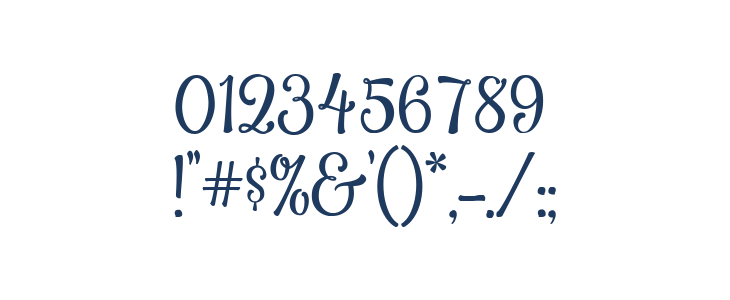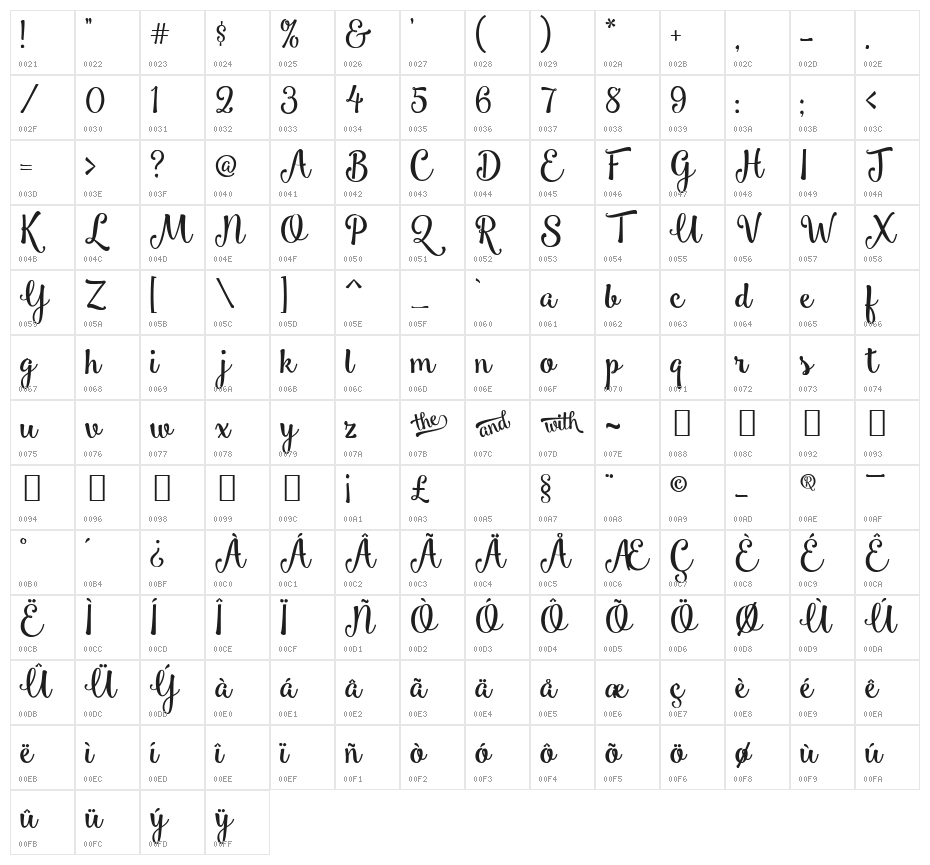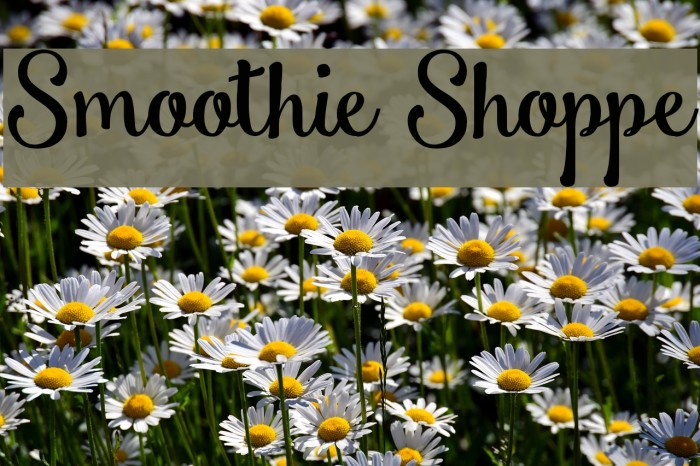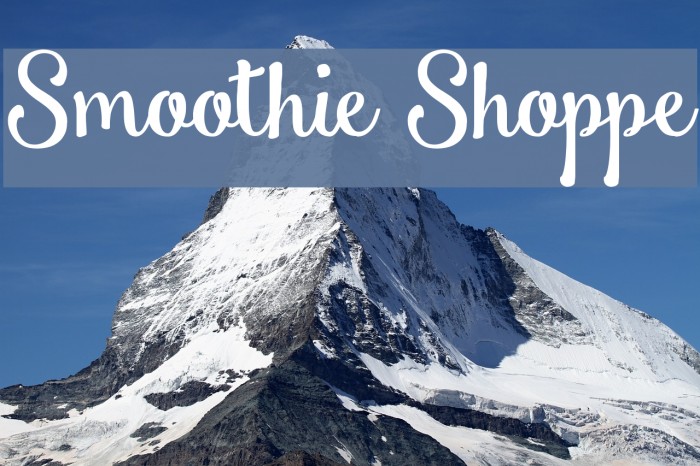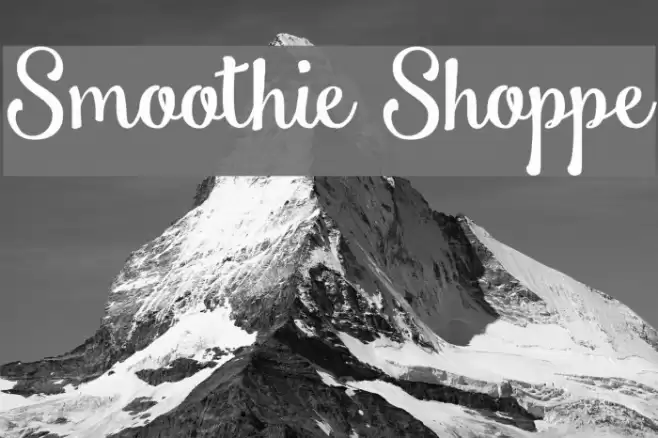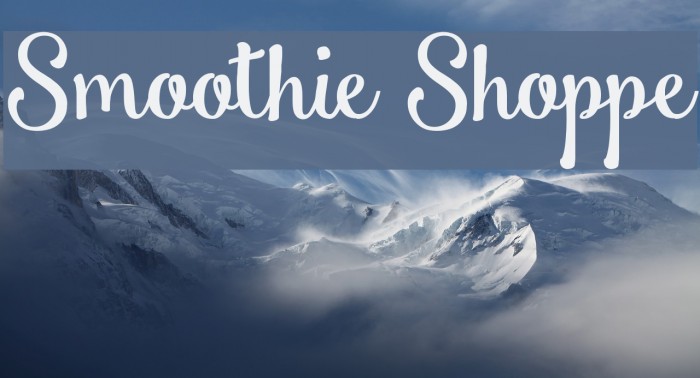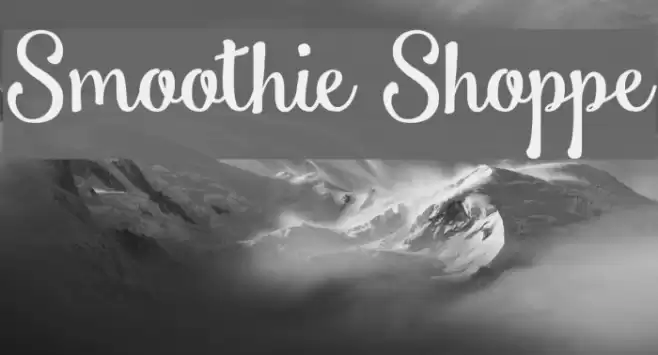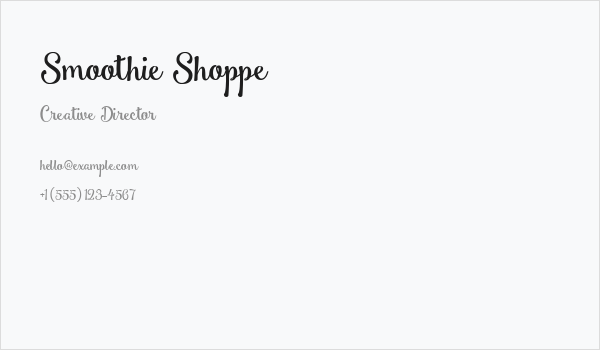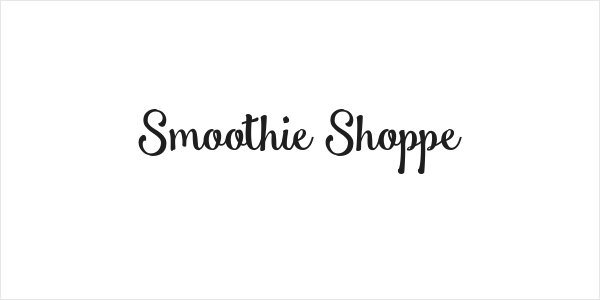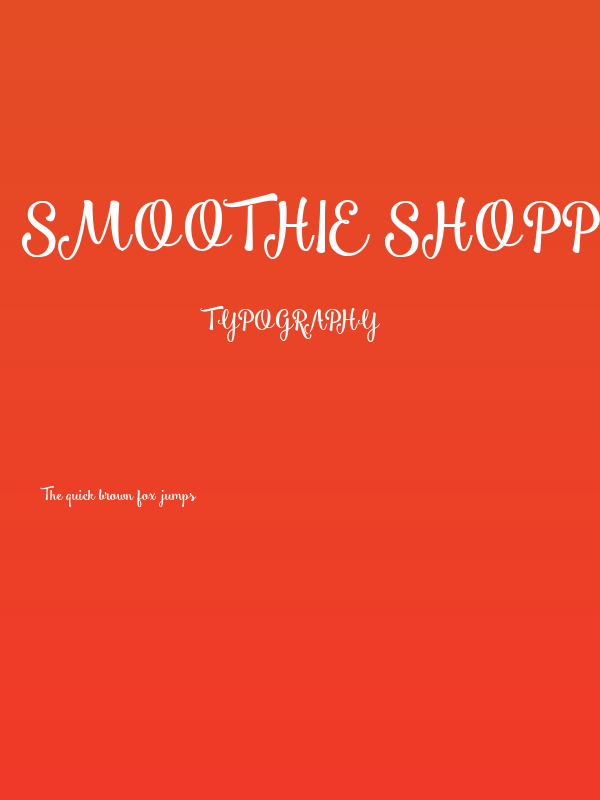
Smoothie Shoppe Font
Smoothie Shoppe Description
This font exudes a playful and whimsical charm, characterized by its flowing, cursive style. The letters are interconnected with smooth, rounded strokes that give it a handwritten feel. The uppercase letters are elegantly looped, while the lowercase letters maintain a consistent flow, enhancing readability. Numbers are bold and clear, matching the overall style. Special characters are creatively integrated, maintaining the font's cohesive look. The font's design is perfect for projects that require a touch of elegance and creativity, such as invitations, greeting cards, or branding for artisanal products.
| Proposed Projects | Ideal for invitations, greeting cards, artisanal product branding, and creative projects. |